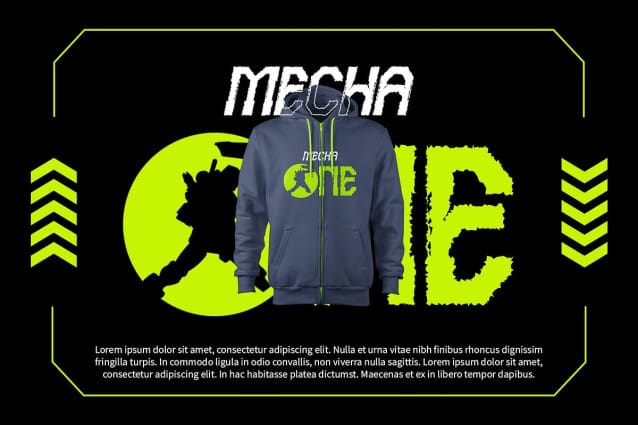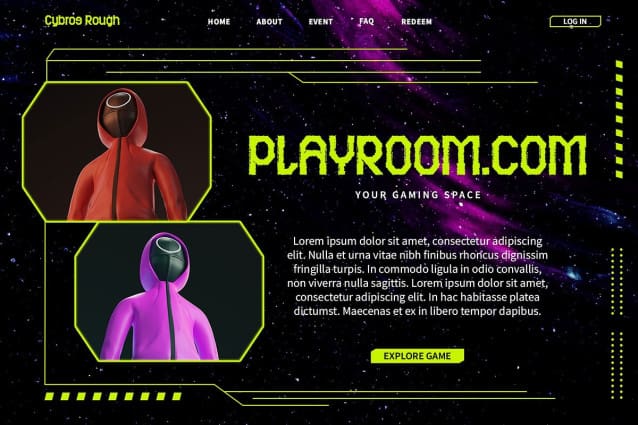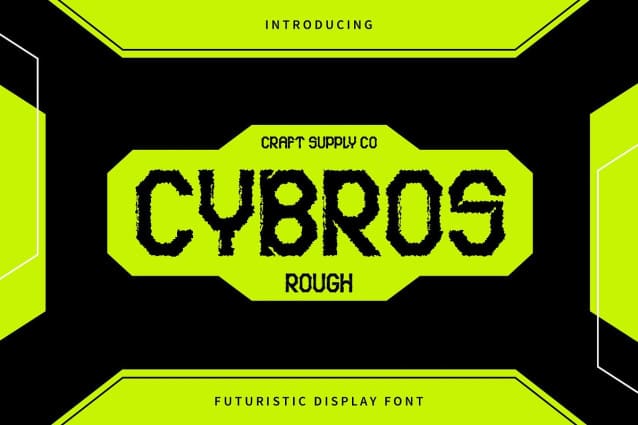
Cybros Rough Font
Cybros Rough Font: A Glimpse into the Future. Futuristic Design Cybros Rough embodies a futuristic aesthetic, drawing inspiration from the sleek lines and bold forms of tomorrow’s world. Its avant-garde style sets it apart as a font of the future.
Dynamic Rough Effect With its rough texture effect, This font exudes energy and dynamism, adding depth and character to each letterform. This unique feature injects a sense of vitality into any display project.
Perfect for Display Needs Tailored for display purposes, This font is ideal for making a statement. Whether it’s in branding, advertising, or digital interfaces, this font commands attention and leaves a lasting impression.
Versatility in Application Beyond its futuristic allure, This font offers versatility in application. From sci-fi movie posters to tech-inspired websites, it adapts effortlessly to various design contexts, enhancing visual impact.
Embrace Tomorrow Today This font invites you to embrace the future of typography. With its futuristic design and dynamic rough effect, it promises to elevate your display projects to new heights. Step into tomorrow today with This font.